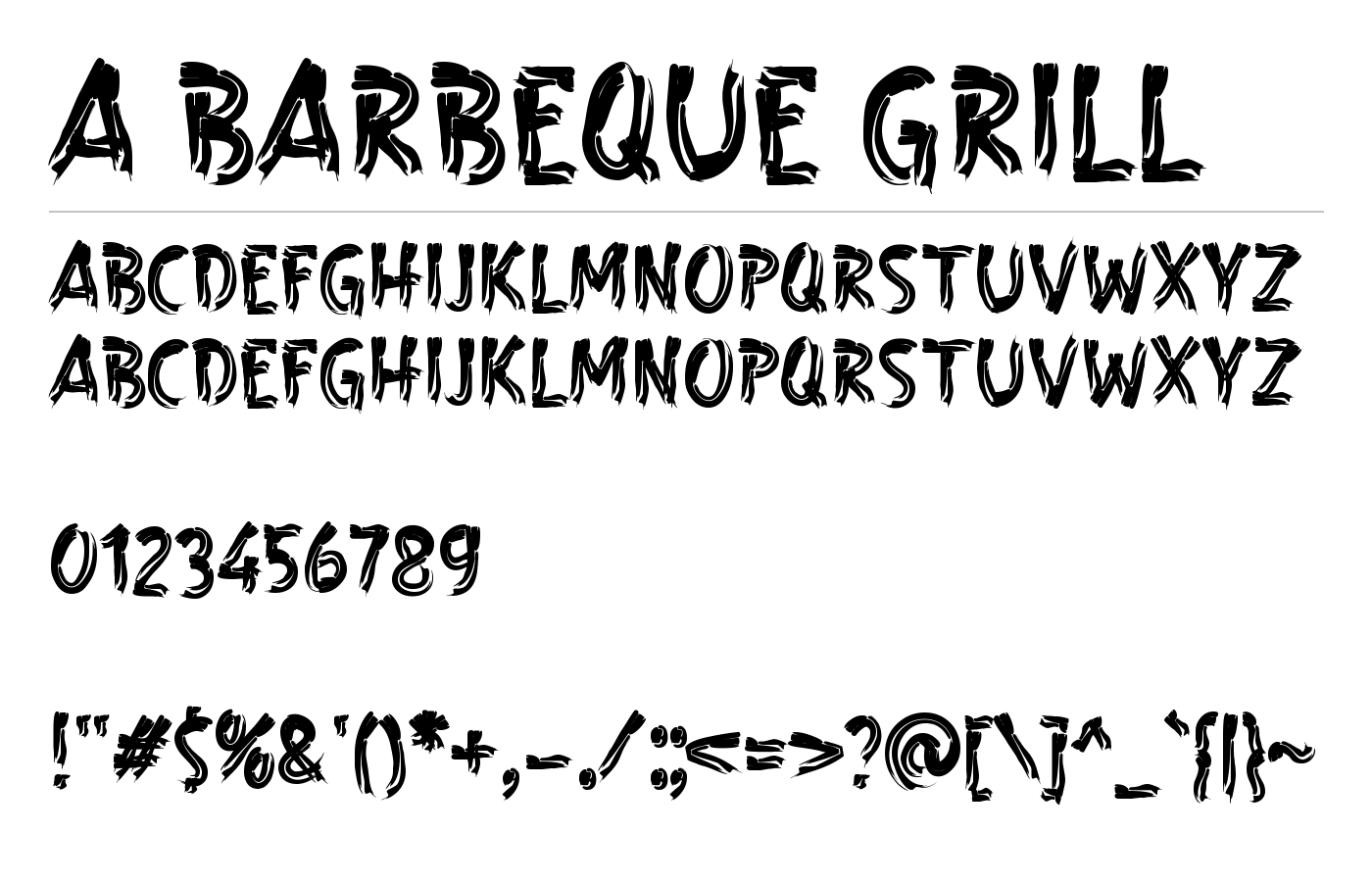
A Barbeque Grill is a bold, hand-drawn display font with a rough, textured style that evokes the look of grill marks or flames. Its irregular, brushstroke-like strokes and all-uppercase letters give it a playful yet edgy personality, perfect for designs needing a casual, energetic vibe. This font works best for restaurant branding, food packaging, posters, and headlines where a rustic, lively atmosphere is desired.
a Barbeque Grill Font
About a Barbeque Grill Font